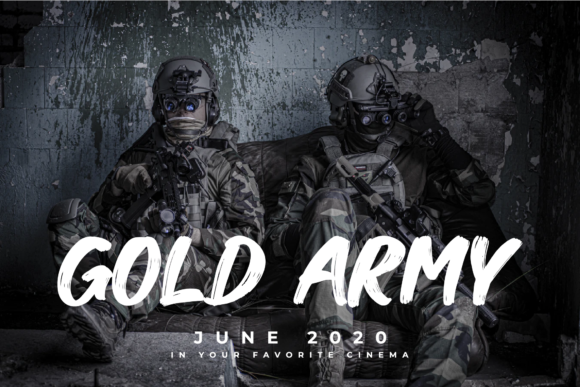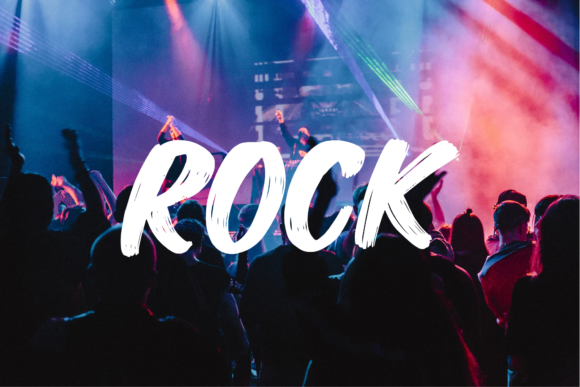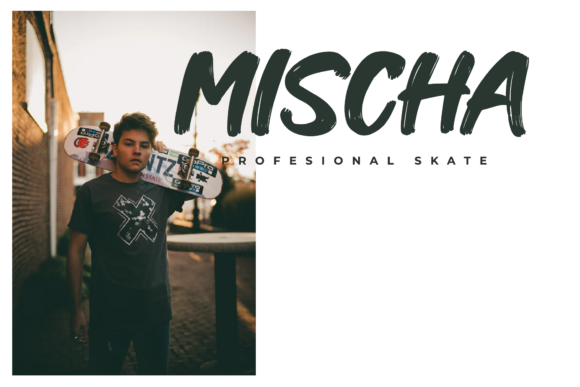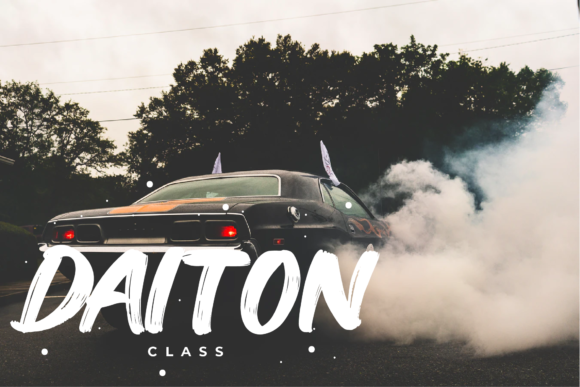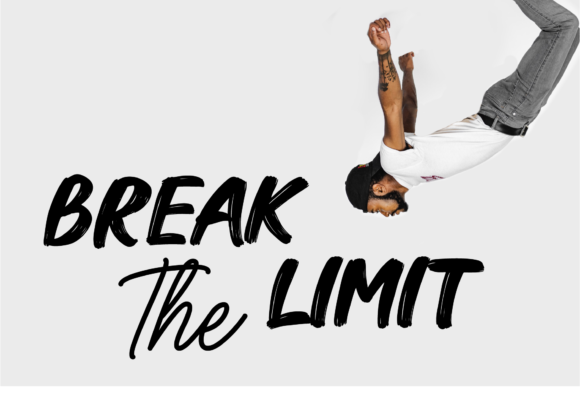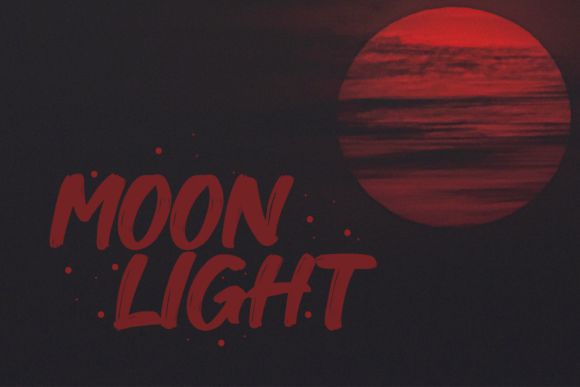
Unleash Your Creativity with Anarchy Font: A Masterpiece of Bold Sophistication
In the world of typography, few fonts manage to strike a balance between boldness and sophistication. Anarchy Font is one such exceptional typeface that effortlessly merges chunky and extended characters to create a visually stunning effect. Designed with precision and creativity, Anarchy Font is a must-have for designers, crafters, and anyone looking to add a touch of edginess to their projects.
The Design Behind Anarchy Font
Anarchy Font boasts a unique brush script design that sets it apart from other fonts. Its chunky and extended characters are meticulously crafted to provide a bold yet refined look. This font is particularly adept at making a statement in logos, branding, packaging design, and various other applications where a strong visual impact is desired. The design of Anarchy Font speaks to a sense of rebellion and freedom, making it perfect for projects that require a bit of an edge.
One of the key advantages of Anarchy Font is its versatility. Whether you’re working on a logo, a brand identity, or a creative project, this font can be seamlessly integrated to add a touch of bold sophistication. Its extended characters allow for a wide range of design possibilities, making it a valuable addition to any designer’s toolkit. From bold headlines to catchy slogans, Anarchy Font can elevate your design to new heights.
Why Choose Anarchy Font?
There are several reasons why Anarchy Font stands out in the world of typography:
- Unique Design: The brush script design of Anarchy Font is both unique and captivating, making it perfect for projects that demand attention.
- Bold yet Sophisticated: Anarchy Font strikes the perfect balance between boldness and sophistication, making it suitable for a wide range of design applications.
- Highly Versatile: With its chunky and extended characters, Anarchy Font offers endless design possibilities.
- Perfect for Logos and Branding: The font’s strong visual impact makes it ideal for logos, branding, and packaging design.
Applications of Anarchy Font
Anarchy Font’s versatility means it can be used in a variety of design projects. Here are some of the most popular applications:
- Logos and Branding: Create memorable logos and brand identities with Anarchy Font’s bold and sophisticated look.
- Packaging Design: Add a touch of edginess to your product packaging with this eye-catching font.
- Advertising: Make your advertisements stand out with bold headlines and catchy slogans crafted with Anarchy Font.
- Graphic Design: Incorporate Anarchy Font into your graphic design projects to add a unique and creative element.
Tips for Using Anarchy Font Effectively
To get the most out of Anarchy Font, consider the following tips:
- Pair with Complementary Fonts: Combine Anarchy Font with simpler fonts to create visual contrast and hierarchy in your designs.
- Experiment with Colors: Don’t be afraid to experiment with different colors to find the perfect match for your design.
- Use in Moderation: While Anarchy Font is bold and attention-grabbing, using it in moderation can help maintain a balanced design.
Anarchy Font is a masterfully designed brush script that brings a unique blend of boldness and sophistication to the world of typography. Its chunky and extended characters make it particularly adept for use in logos, branding, packaging design, and much more. Whether you’re a designer, crafter, or simply someone looking to add a touch of edginess to your projects, Anarchy Font is a true must-have. With its versatility and striking design, Anarchy Font is sure to unleash your creativity and take your designs to new heights.